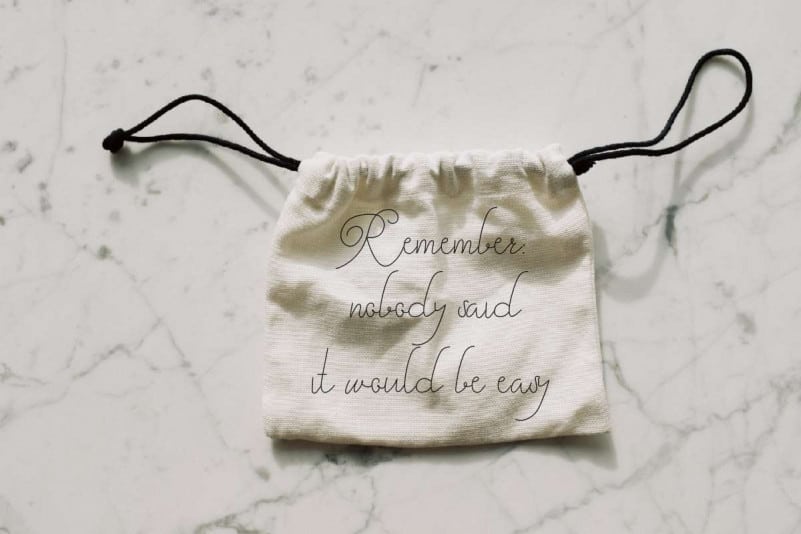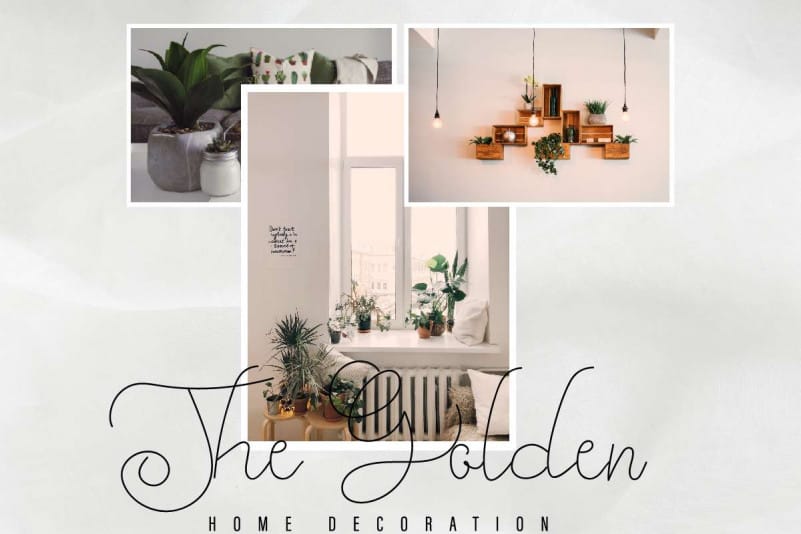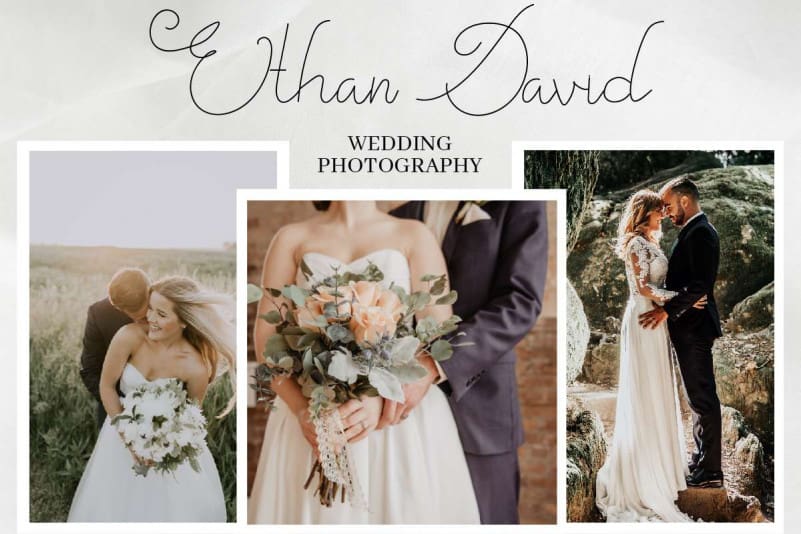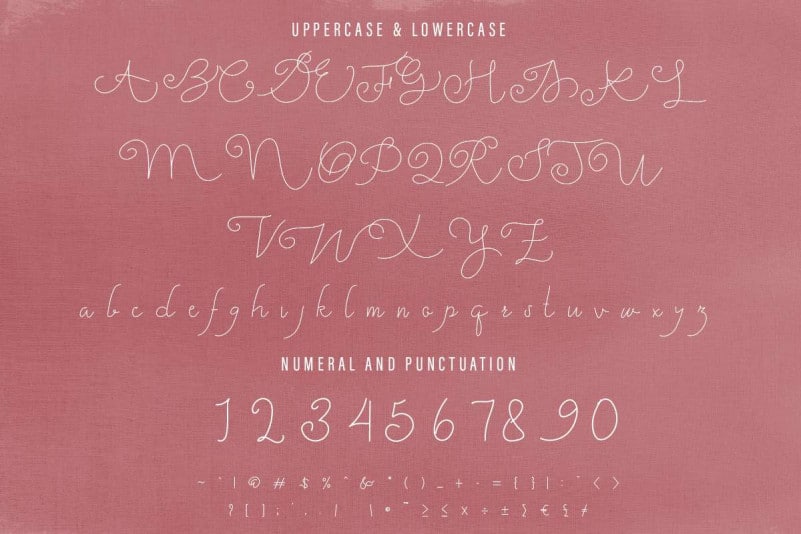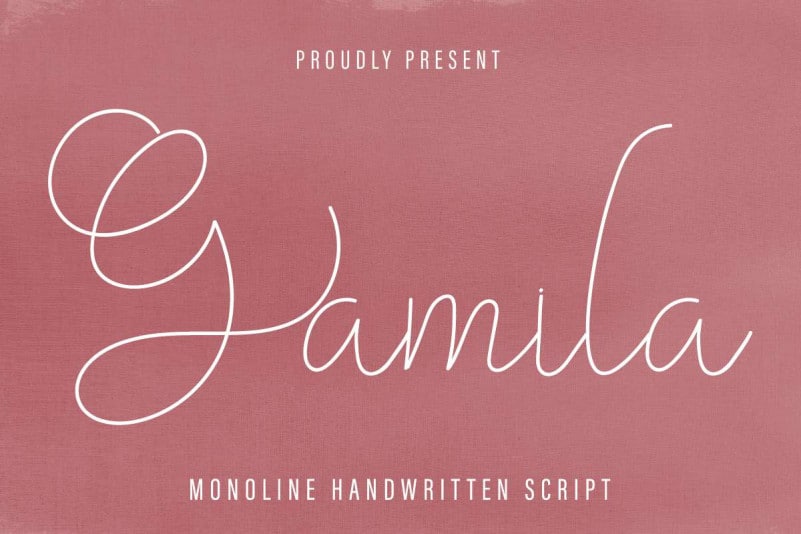
Gamila Thin Handwritten Font
Gamila Thin Handwritten Font is an exclusive handwritten script typeface with one line monoline style. This font has a stunning characters set, perfectly managed with well spaced and kerning. The theme style of this font will elegant, luxury, chic, gold, cute, stylish, sophisticated and classic pen signature style. It also comes with many alternatives characters.
Gamila Thin Handwritten Font will be great for any projects including : branding, logo, stationery, business card, signage, flyer, brochure etc. Almost all industries will be match for this typeface: wedding, events, real estate, architect, law firm, florist, gardening, makeup artist, travel, hotel, musician etc